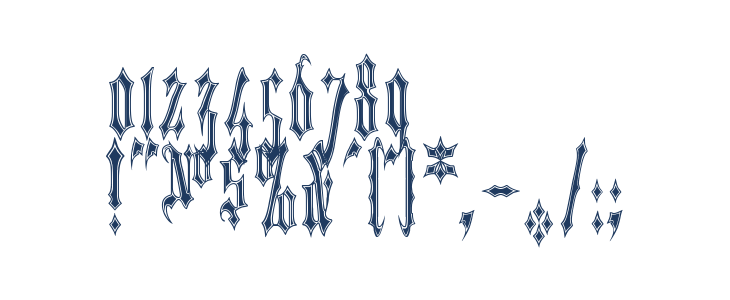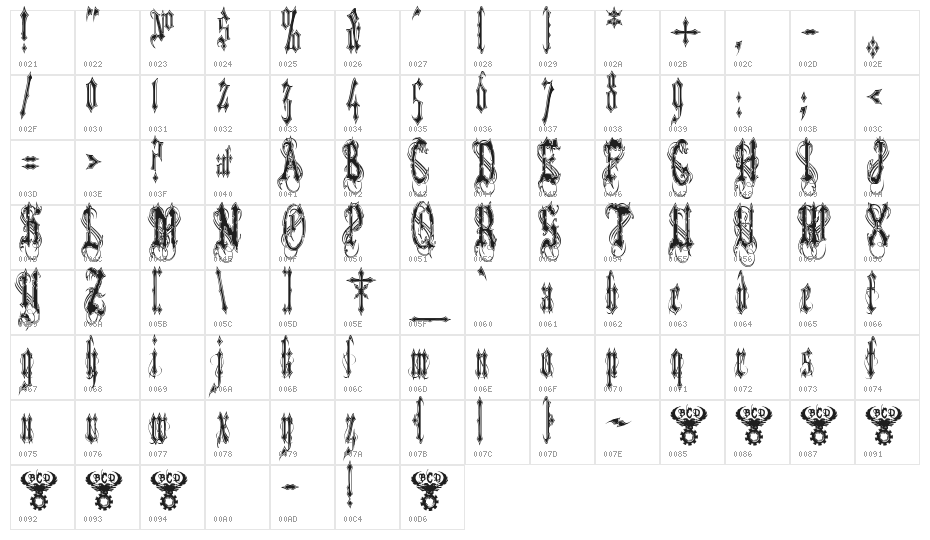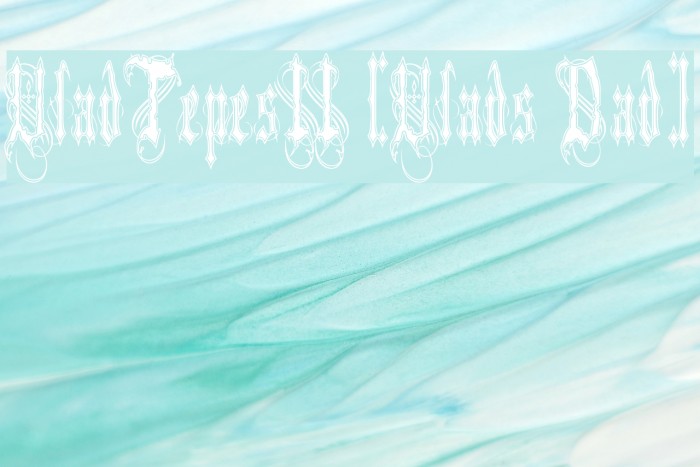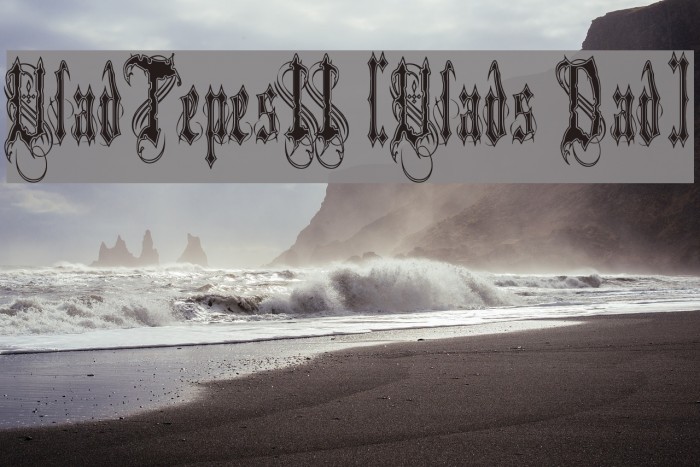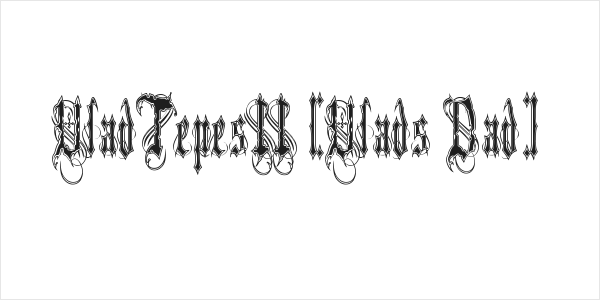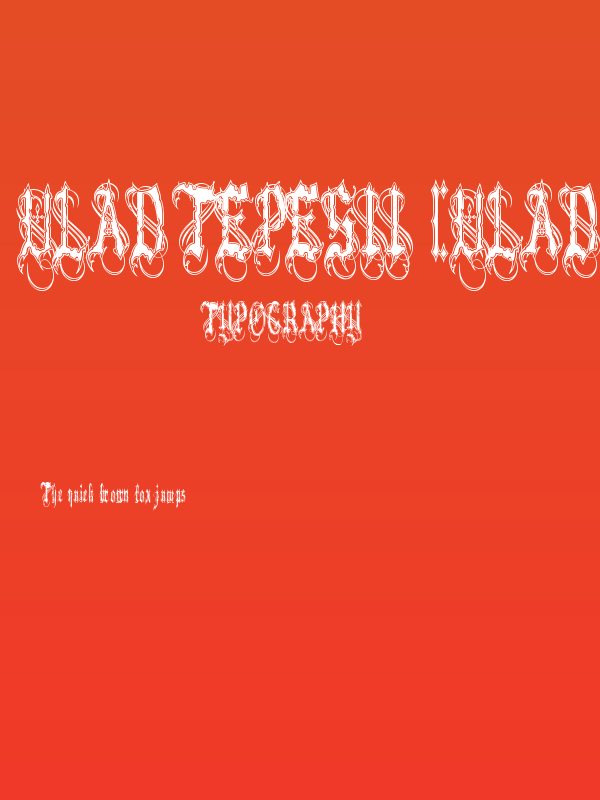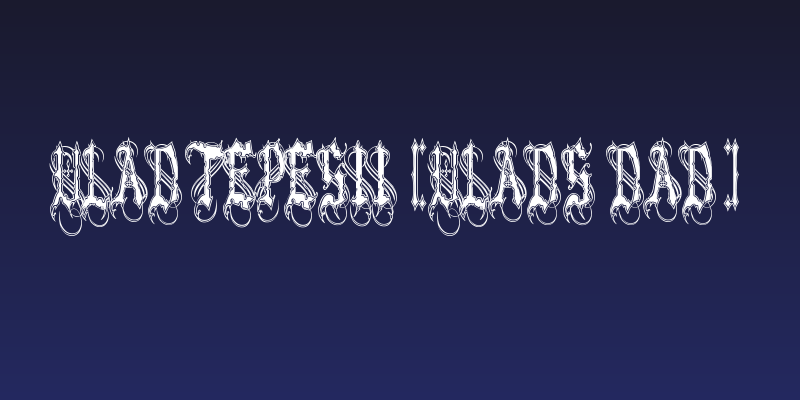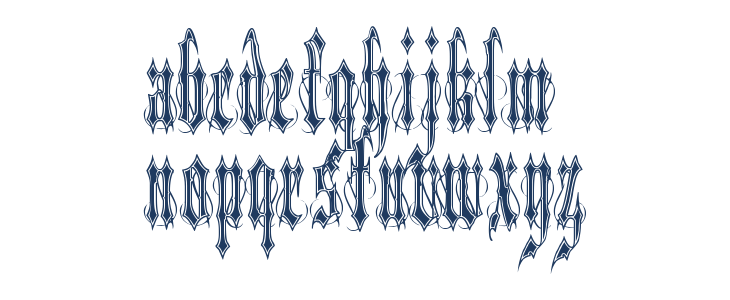
VladTepesII [Vlads Dad] Font
VladTepesII [Vlads Dad] Description
This font is a striking example of Blackletter style, characterized by its intricate and ornate design. The letters are bold and feature sharp, angular lines with elaborate flourishes, giving it a distinctly medieval and gothic appearance. The uppercase letters are particularly elaborate, with decorative elements that extend beyond the basic letterforms. The lowercase letters maintain the same level of detail, ensuring consistency throughout the typeface. Numbers and special characters are equally ornate, making this font suitable for projects that require a dramatic and historical aesthetic. The overall design is highly decorative, making it ideal for use in contexts where a strong visual impact is desired.
| Overall Style | Gothic, Decorative |
| Proposed Projects | Ideal for historical-themed designs, gothic event invitations, book covers, and branding that requires a dramatic flair. |